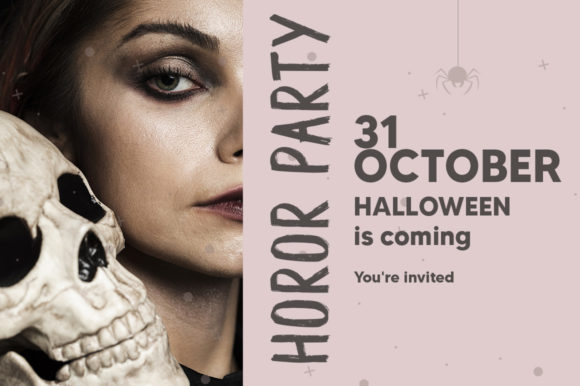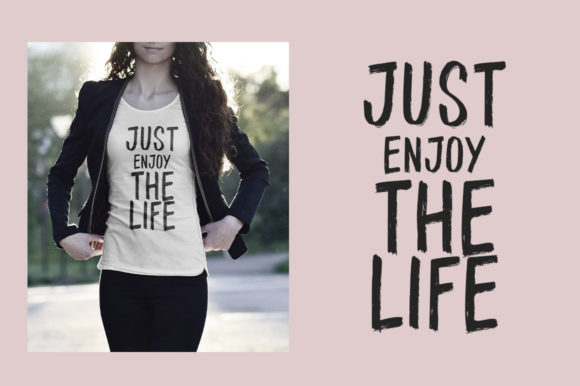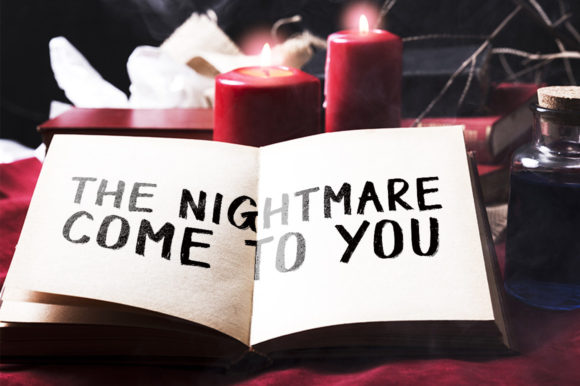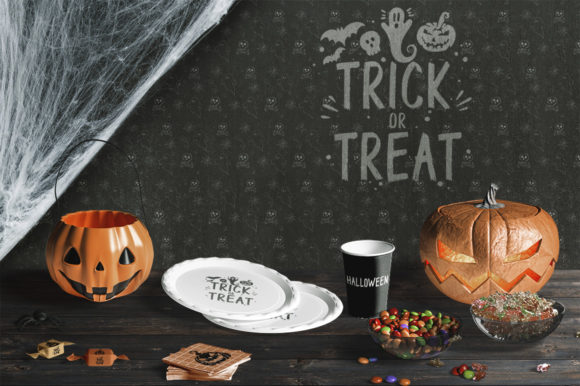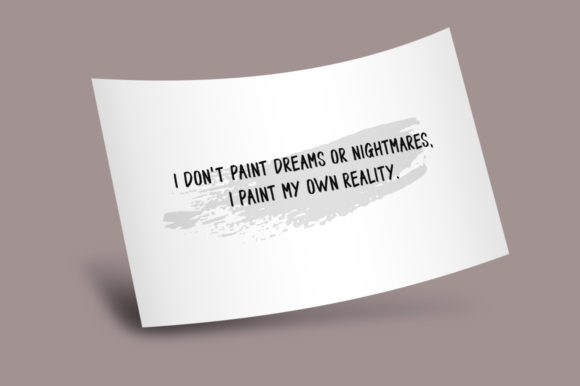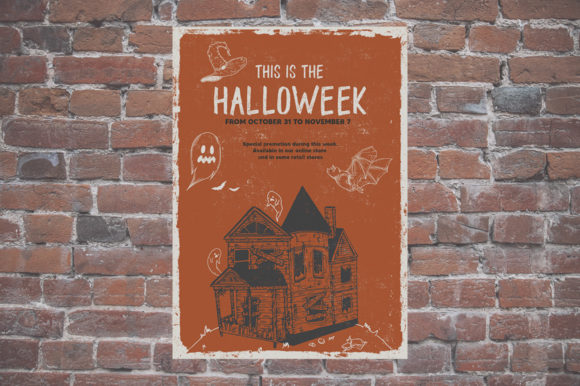
Introduction to Little Nightmare Font
As the clock strikes midnight and the moon casts an eerie glow, designers are often faced with the daunting task of bringing their creative visions to life. For those who dare to venture into the realm of the unknown, a reliable design resource is essential. That’s where the Little Nightmare Font comes in – a masterfully crafted display font that’s sure to send shivers down your spine.
Whether you’re working on a high-quality project or need a free download to add a touch of sophistication to your design, the Little Nightmare Font is an invaluable asset. Its transparent background and bold, gothic typography make it the perfect choice for any creative endeavor. From spooky-themed posters to high-end branding materials, this font has the potential to elevate your design to new heights.
With the Little Nightmare Font, designers can unlock their full creative potential and bring their most daring ideas to life. Its versatility and high-quality design make it an indispensable resource for any project, from a simple social media graphic to a complex, multi-page publication.
Key Features of Little Nightmare Font
- High-quality design resource for creative projects, perfect for adding a touch of eeriness to your artwork.
- Features a unique, hand-drawn style with intricate details, ideal for use in horror-themed projects or those requiring a mysterious atmosphere.
- Supports a wide range of languages, making it a versatile design resource for international projects.
- Part of a larger font family, offering a range of styles and weights to suit various design needs.
Honest Review: Little Nightmare Font
I recently stumbled upon the Little Nightmare Font while searching for a unique design resource for a creative project. I must say, I was impressed with the overall quality and aesthetic of this font.
Here are some aspects that I particularly liked:
- ✨ High-quality design: The Little Nightmare Font has a clear, crisp appearance that makes it perfect for print or digital use.
- ✨ Versatility: This font can be used for a wide range of creative projects, from titles and headings to body text.
- ⚠️ Limited character set: The font’s character set is not as comprehensive as some other fonts I’ve used in the past.
- ⚠️ Not suitable for all designs: The font’s unique style may not be suitable for all types of creative projects, particularly those that require a more straightforward or professional look.
Overall, I’m impressed with the Little Nightmare Font and would recommend it to designers looking for a unique and high-quality design resource. Just be aware of its limitations and use it wisely.
For the best results, use the Little Nightmare Font in a design project that requires a high level of creativity. This font is perfect for creating unique and eye-catching designs, such as posters, flyers, and social media graphics.
The Little Nightmare Font is commonly used in a variety of design projects, including:
Poster and flyer design
Social media graphics and advertising
Book and magazine design
Web design and development